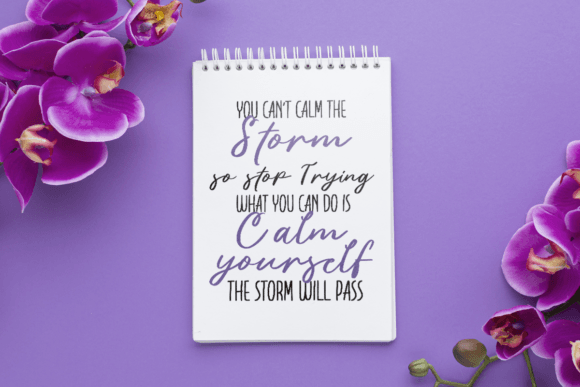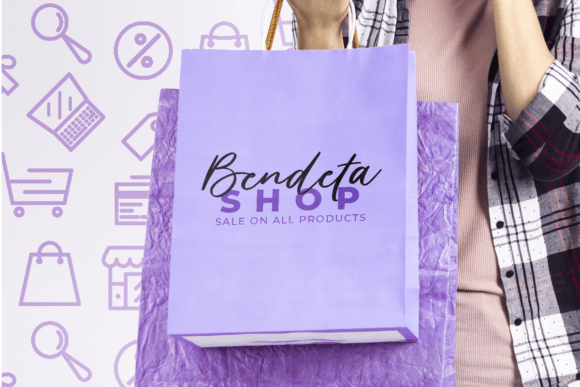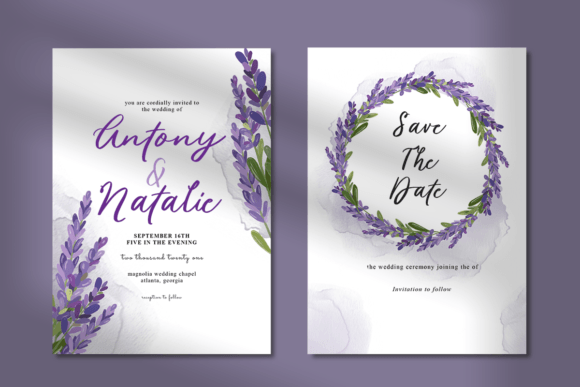
Introduction to Modestan Font
As a designer, there’s nothing quite like the thrill of discovering a new font that captures the essence of a creative project. It’s that moment when the words flow effortlessly, and the design starts to take shape. For me, it was the discovery of the Modestan Font, a stylish and elegant script font that has been a game-changer in my design journey.
With its beautiful, flowing lines and high-quality design, the Modestan Font is perfect for adding a touch of sophistication to any project. Whether it’s a wedding invitation, a thank you card, or a logo, this font is sure to make a lasting impression. Plus, with its transparent background option, designers can easily customize it to fit their creative vision.
Key Features of Modestan Font
- High-quality design: The Modestan Font is a premium design resource that offers a unique and elegant style perfect for creative projects.
- Unique characteristics: The Modestan Font features a distinctive, minimalist design that sets it apart from other fonts, making it a great choice for designers looking to add a touch of elegance to their work.
Honest Review: Modestan Font
I recently stumbled upon the Modestan Font while searching for a high-quality design resource to use in a creative project. I was immediately drawn to its clean and minimalist aesthetic, making it perfect for a variety of design applications.
One of the standout features of the Modestan Font is its transparent background, which allows it to seamlessly blend into any design. This makes it an excellent choice for designers who want to create a cohesive look without distractions.
- High-quality design with a clean aesthetic ✨
- Transparent background for easy integration ✨
- Limited font styles and variations ⚠️
- May not be suitable for complex or detailed designs ⚠️
Overall, I’m impressed with the Modestan Font and would highly recommend it for designers who are looking for a simple yet effective design solution. Its high-quality design and transparent background make it an excellent choice for a variety of creative projects.
Tips for Getting the Most Out of Modestan Font
To get the most out of the Modestan Font, use it in conjunction with other high-quality design resources, and experiment with different font sizes, colors, and styles to create a unique look.
The Modestan Font is perfect for creative projects such as logos, brochures, and business cards. It’s also great for use in digital design, such as social media graphics and website headers.